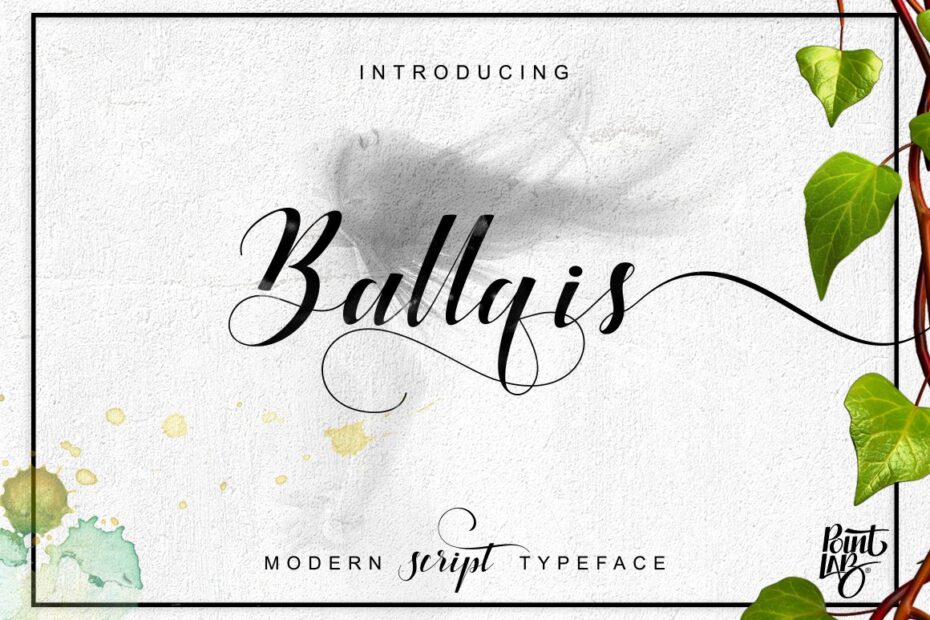
Adding a Touch of Elegance with the Ballqis Font
Have you ever stared at a blank canvas, trying to conjure up the perfect design, only to be struck by a spark of inspiration? For me, it was the moment I stumbled upon the Ballqis Font. Its intricate details and flowing lines transported me to a world of luxury and sophistication, and I knew I had to incorporate it into my next project.
The Ballqis Font is a script that boasts an impressive 1100 glyphs, making it a robust yet refined addition to any design. With its decorative characters and dancing baseline, it’s the perfect font to use when you want to add a touch of class to your designs. Whether you’re creating a high-end brochure or a wedding invitation, the Ballqis Font is sure to make a lasting impression.
As a designer, having access to a versatile font like the Ballqis Font can be a game-changer. It offers endless possibilities for creativity and experimentation, allowing you to push the boundaries of what’s possible with your designs.
- Font Family: Ballqis is a unique, handwritten font with a beautiful, elegant touch.
- Unique Characteristics: Ballqis features a distinctive, flowing script style with a mix of uppercase and lowercase letters, making it perfect for creative and artistic projects.
- Language Support: Ballqis supports a wide range of languages, including Latin, Cyrillic, and Greek alphabets.
Overall, I was impressed with the Ballqis Font. The designer has managed to create a unique and elegant font that can add a touch of sophistication to any design project. Here are some of the things that I think work well: ✨
- Unique and elegant design: Ballqis Font has a distinctive style that sets it apart from other fonts. It’s perfect for designers who want to add a bit of flair to their work.
- Good for body text: Despite its elegant design, Ballqis Font is still readable and comfortable to use for body text. This makes it a great choice for long-form content.
- Wide range of languages: The font includes a wide range of languages, making it a great choice for designers who need to work with multiple languages.
However, there are also some limitations to consider: ⚠️
- Not ideal for headings: While Ballqis Font is great for body text, it may not be the best choice for headings. It can get a bit lost when used in large sizes.
- Lack of italics: Unfortunately, the font does not include italics, which can be a limitation for designers who need to use italics for emphasis or quotes.
Overall, I think Ballqis Font is a great choice for designers who want to add a touch of elegance to their work. While it may have some limitations, it’s a well-designed font that is worth considering for your next project.
Tips for Getting the Most Out of Ballqis Font
Here are some tips to get the most out of the Ballqis font:
- Use it for titles and headings to add a touch of elegance.
- Pair it with bold fonts for a striking contrast.
The Ballqis font is perfect for:
- Artistic and creative projects.
What font sizes and styles are available in Ballqis?
Ballqis includes a range of font sizes, from 8pt to 144pt, as well as various styles, including Regular, Italic, Bold, and Bold Italic. You can access these styles in your design application by selecting the desired font size and style from the font menu.